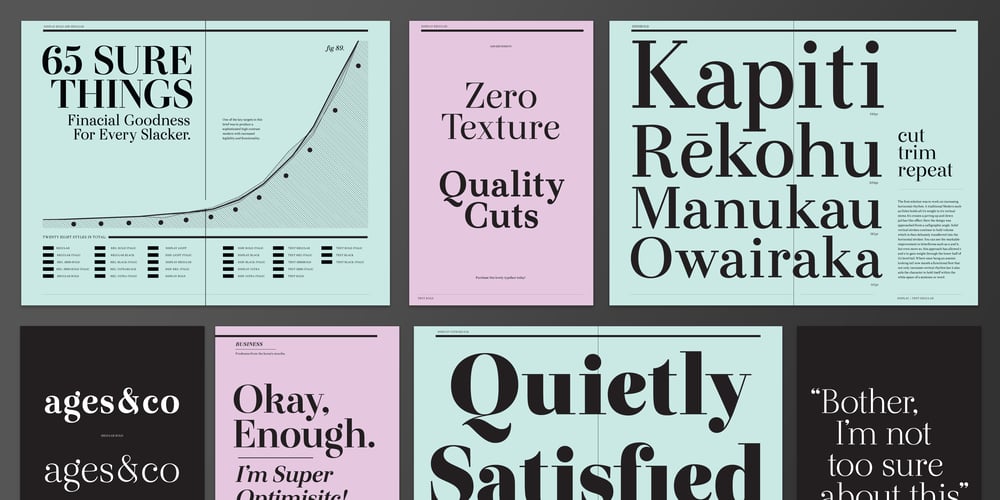
Otama
Otama font
Otama Font Family was designed by Tim Donaldson and published by Tim Donaldson. Otama contains 27 styles and family package options. From the dainty light weight through to the striking UltraBold, Otama raises the bar to a new level of dangerous sophistication. Although easily classified alongside Modern typefaces such as Didot and Bodoni, Otama was purposely developed with minimum reference to these two visual heavy weights. In search of something more than a mere historical revival, Otama instead draws proportional reference from popular 20th century Transitional and Garalde typefaces with visual inspiration coming from calligraphic studies. Many characteristics from Tim Donaldson’s 2010 display face Pyes Pa were directly passed on in execution of Otama — The shoelaced k, e and a being the most obvious examples of this family relation. Refined over 2 years with well over 8,000 characters over 28 styles, Otama certainly deserves its place as a comprehensive and versatile typeface in any designer’s font library.